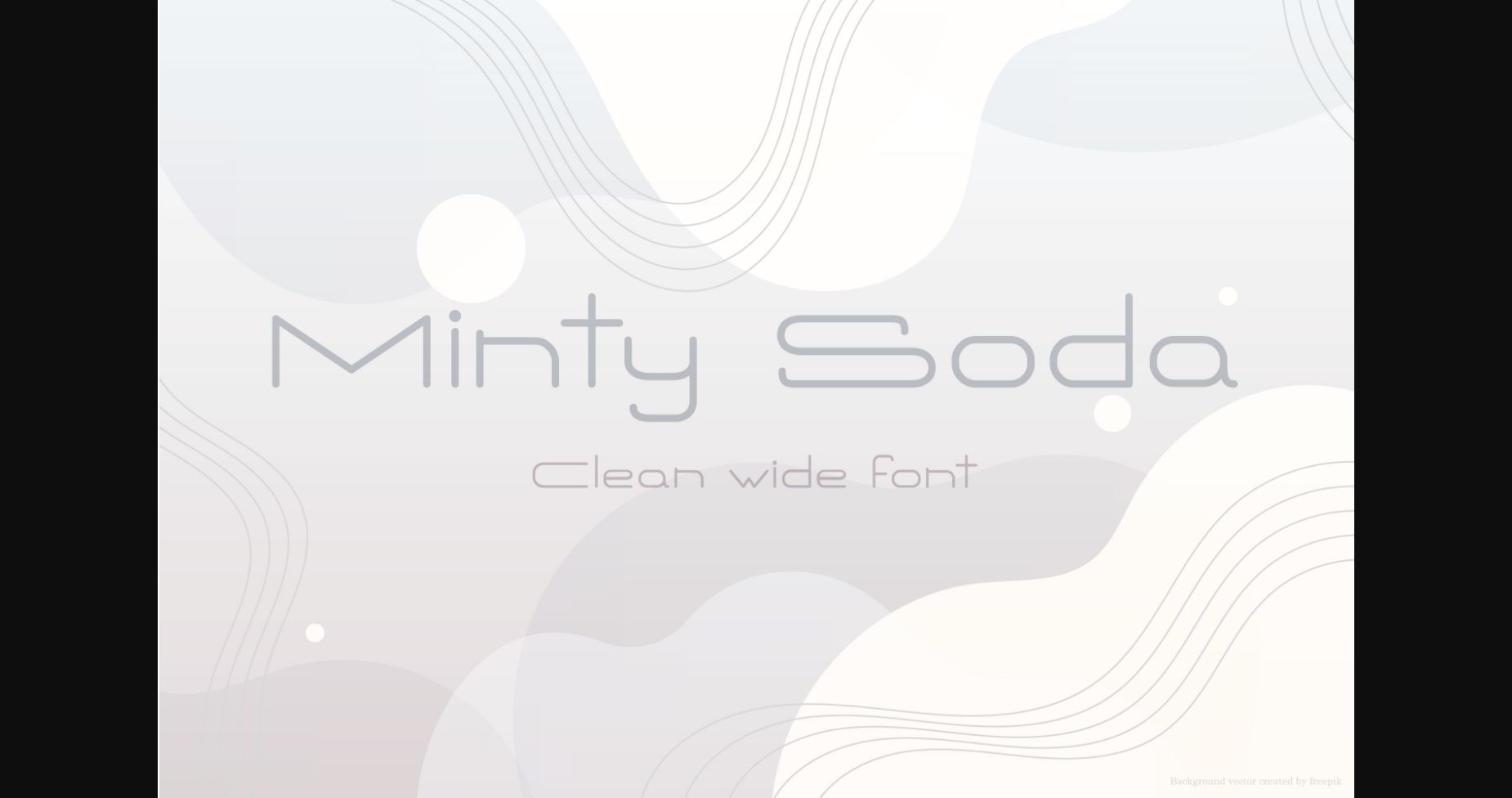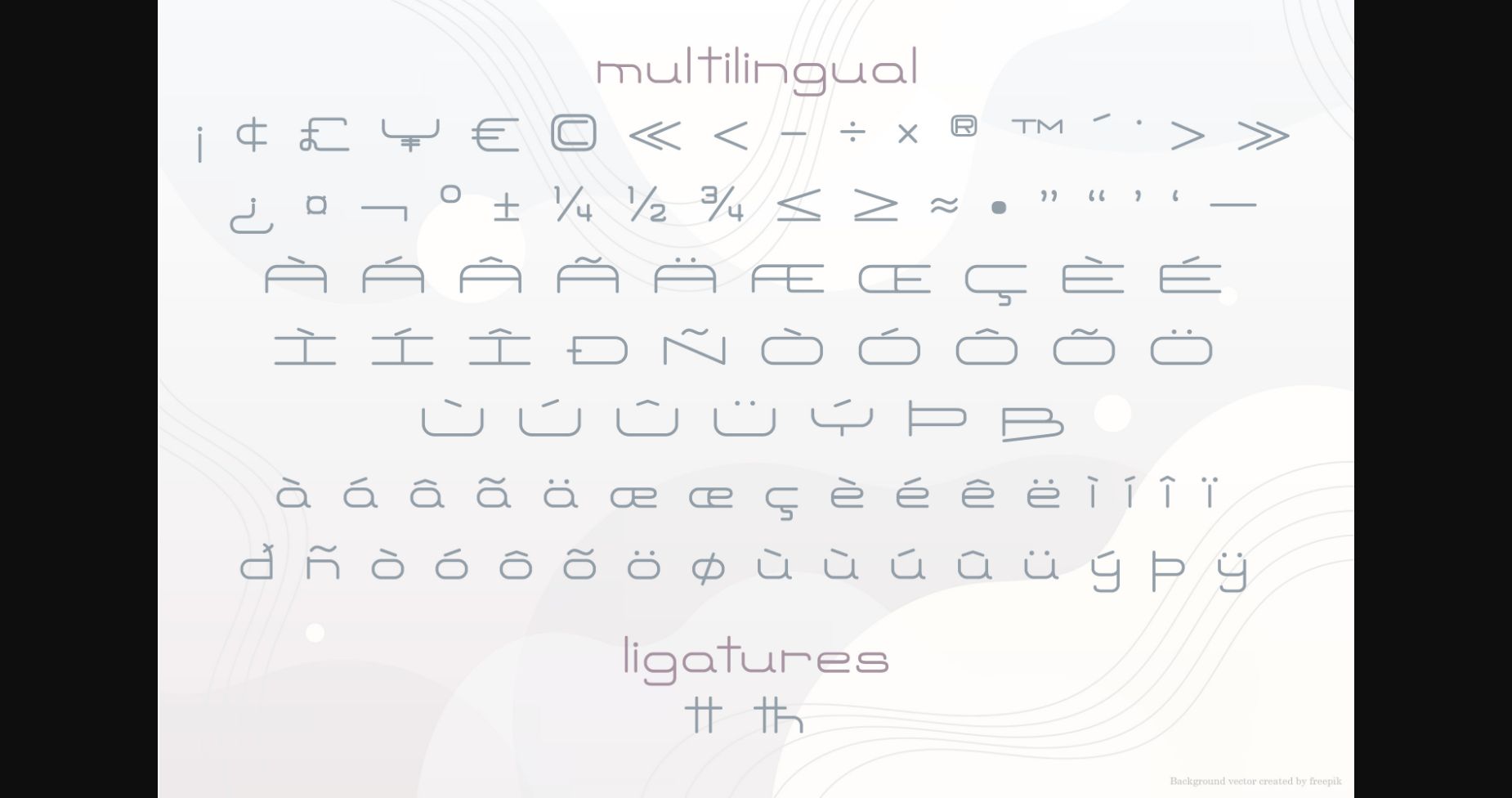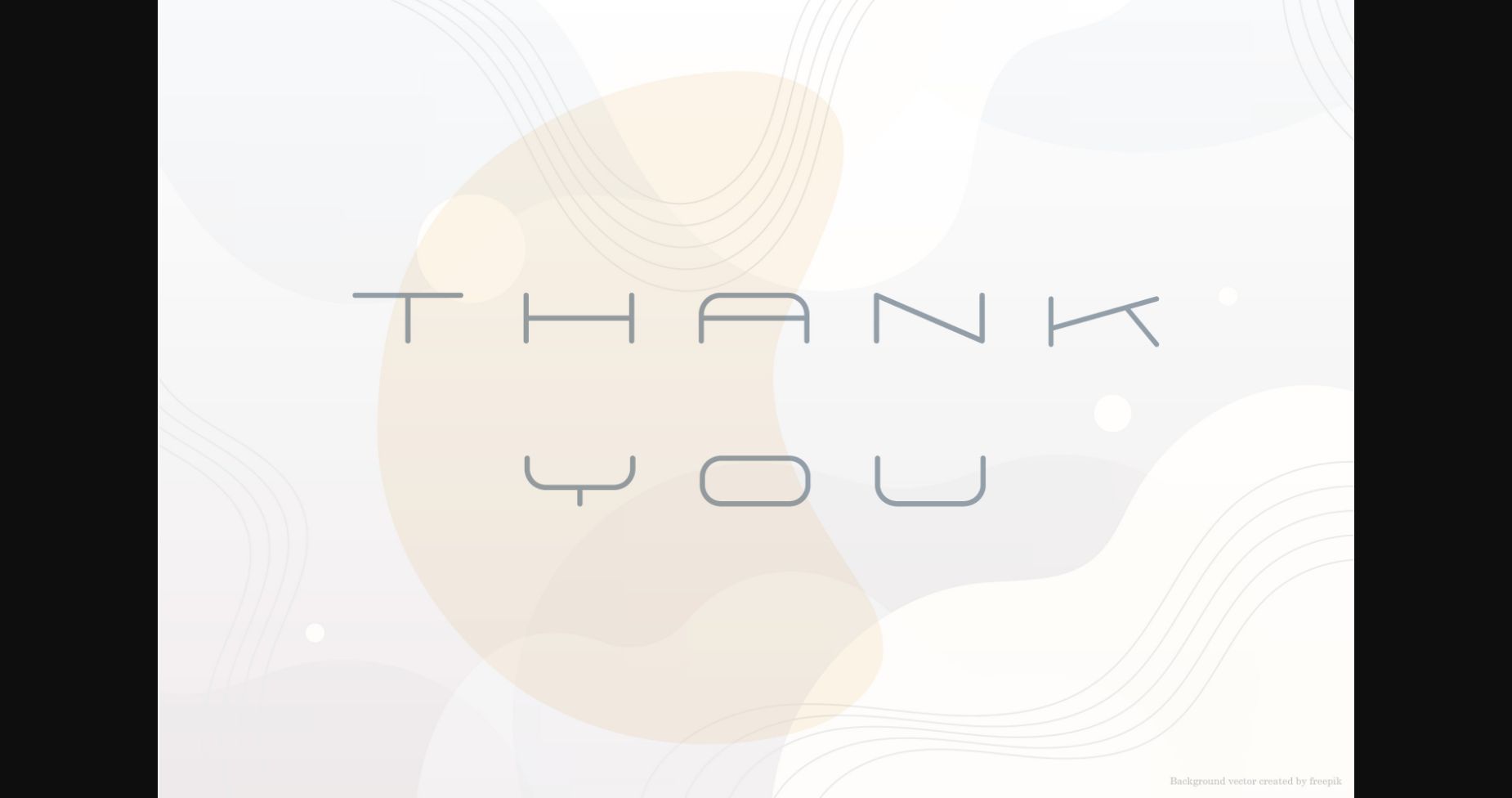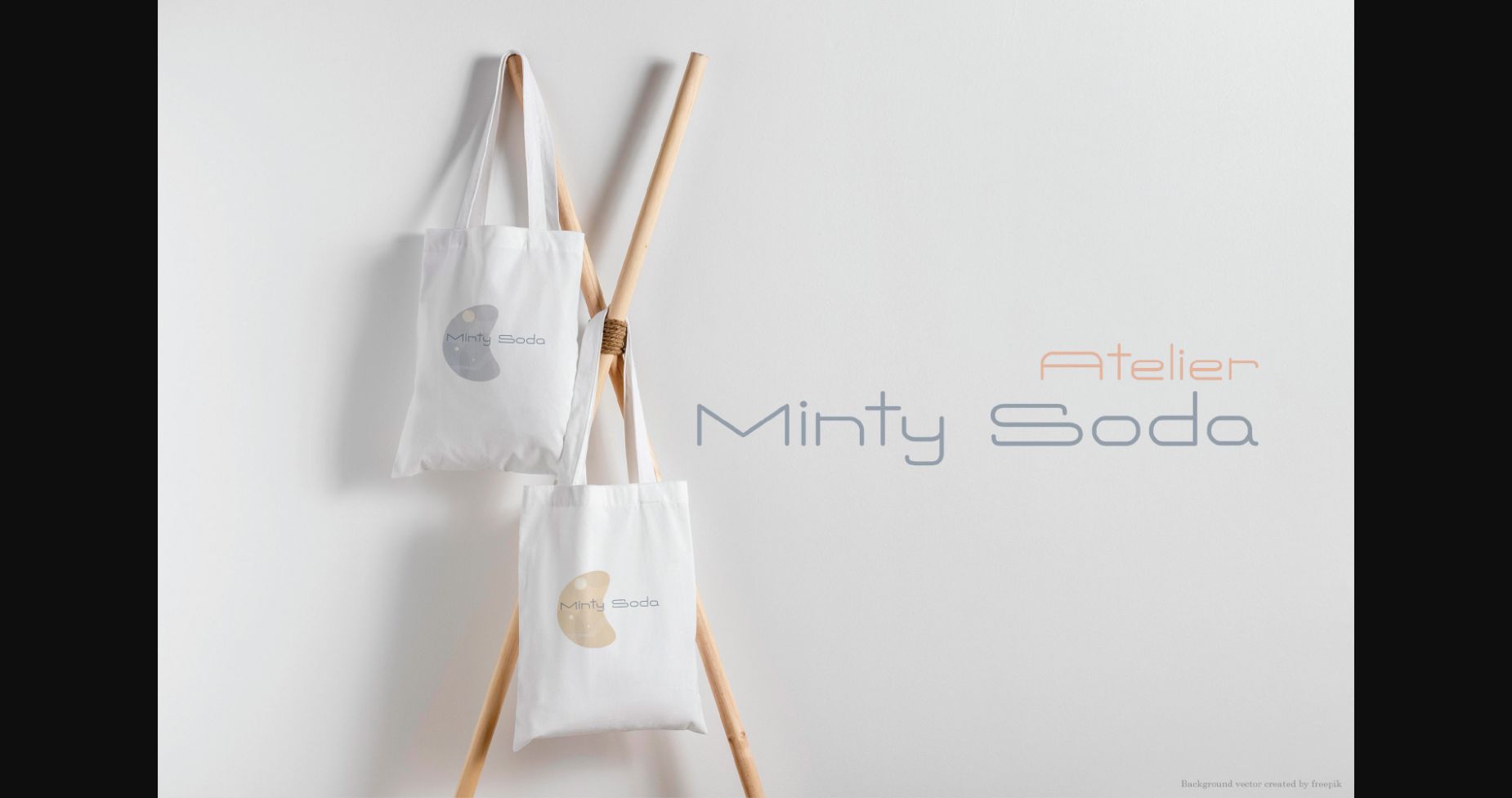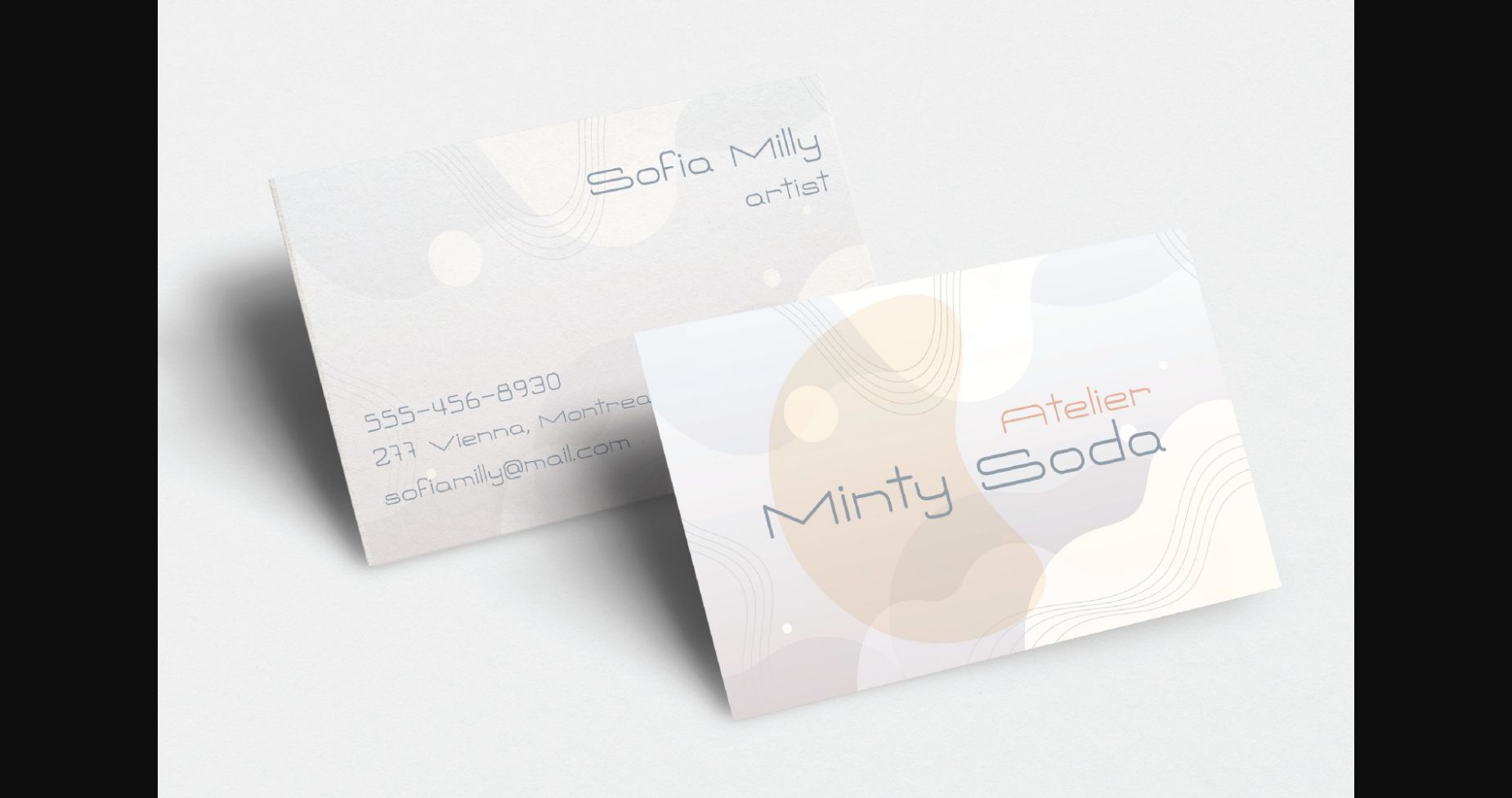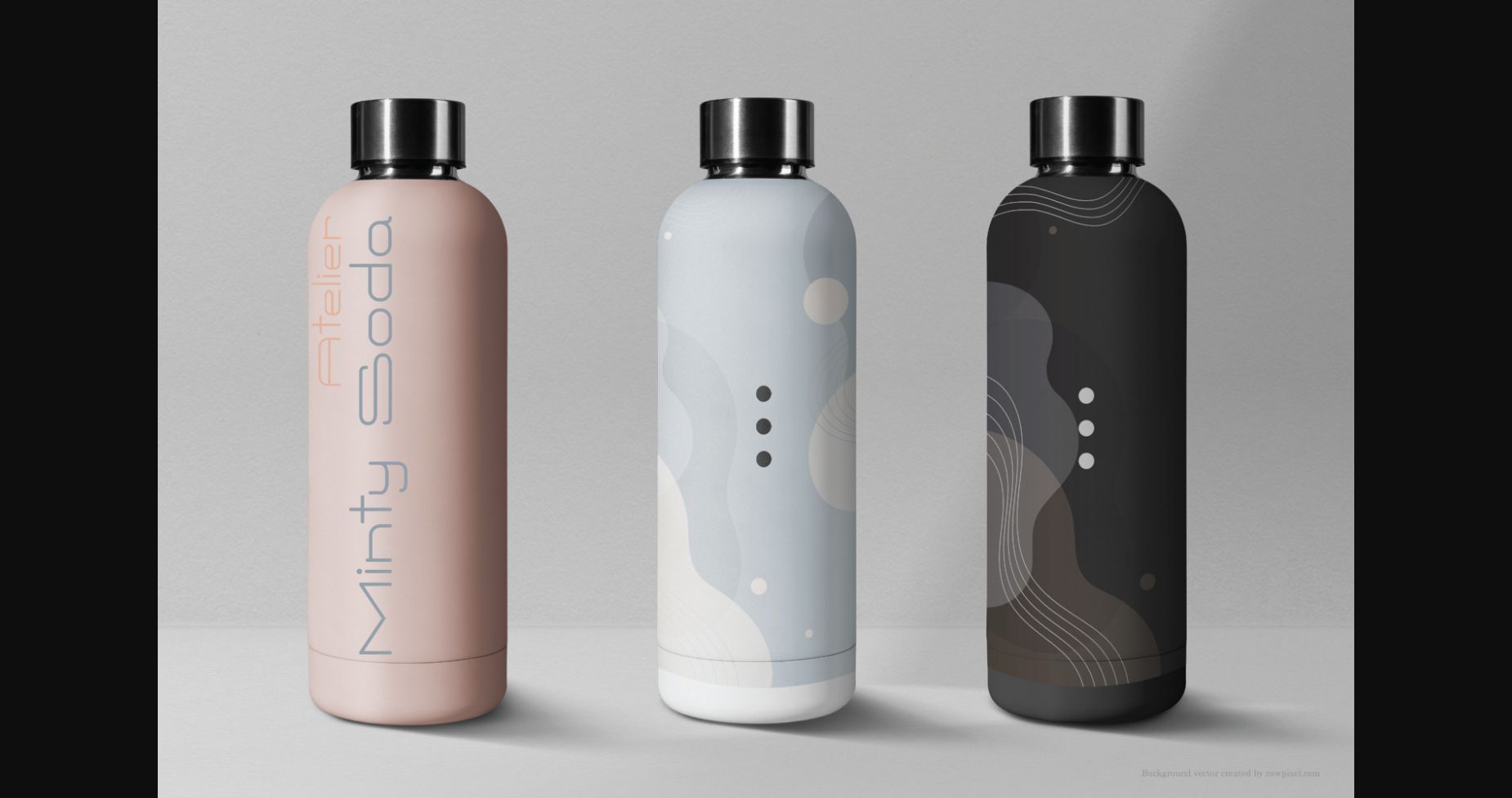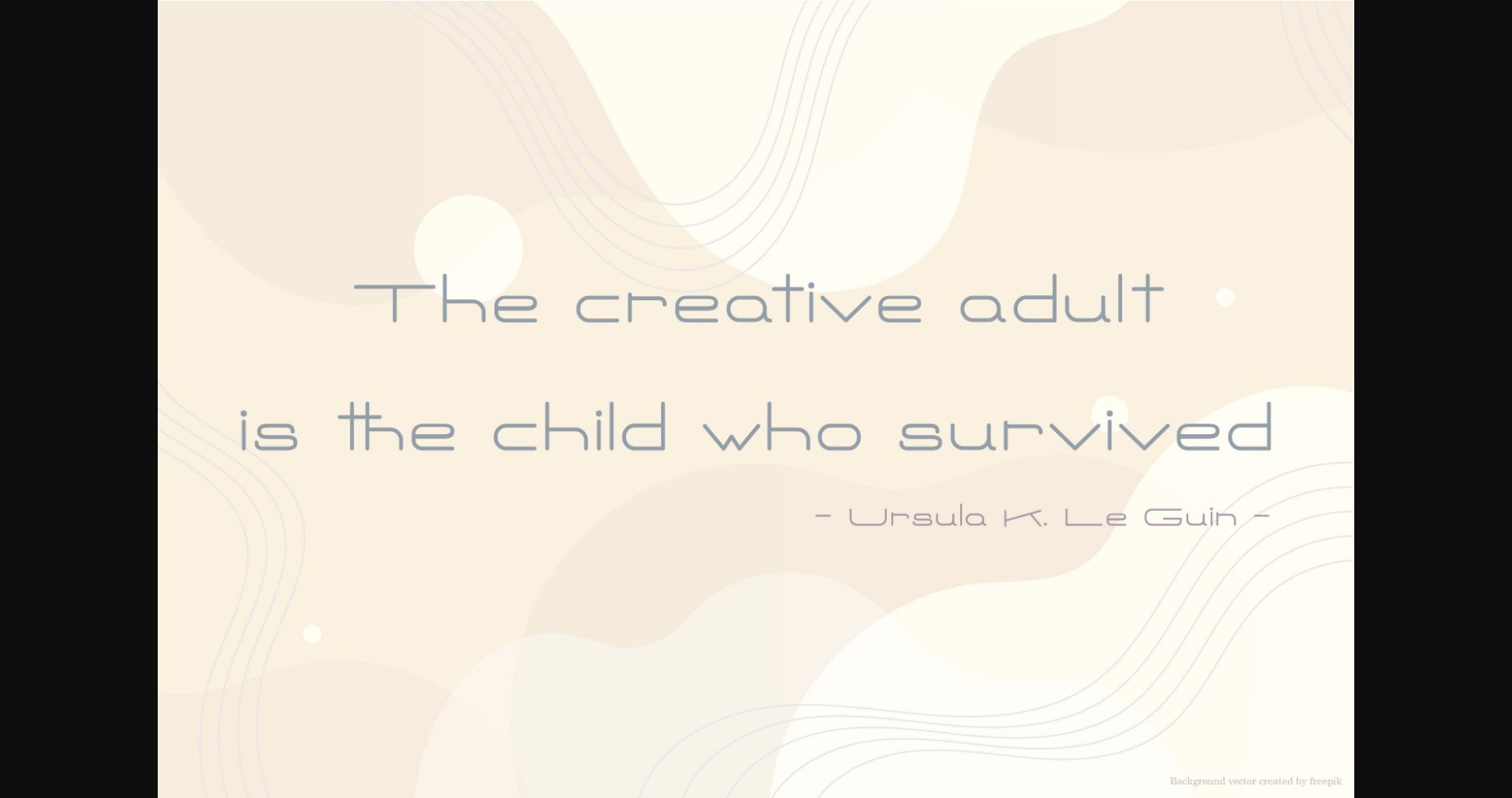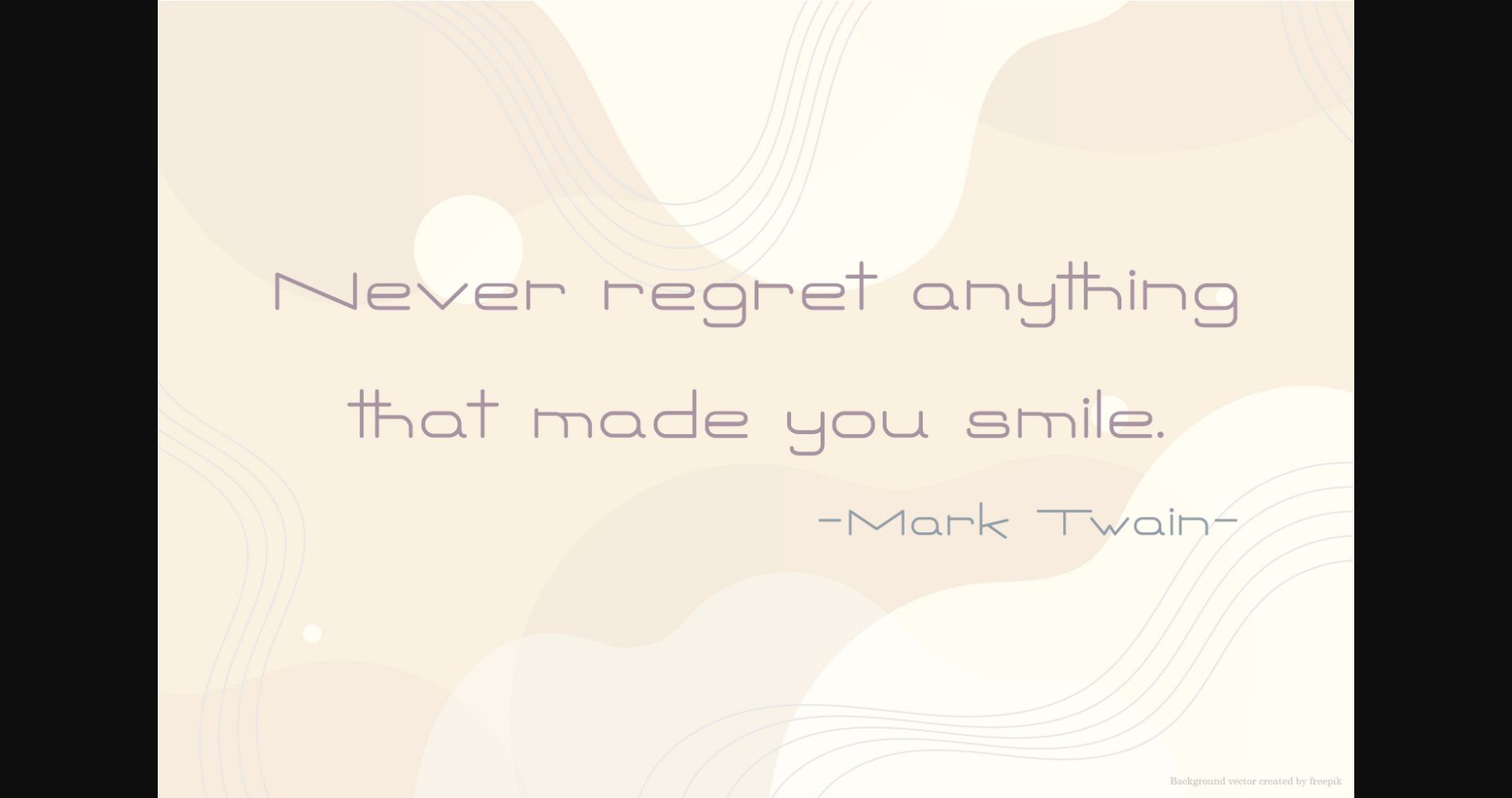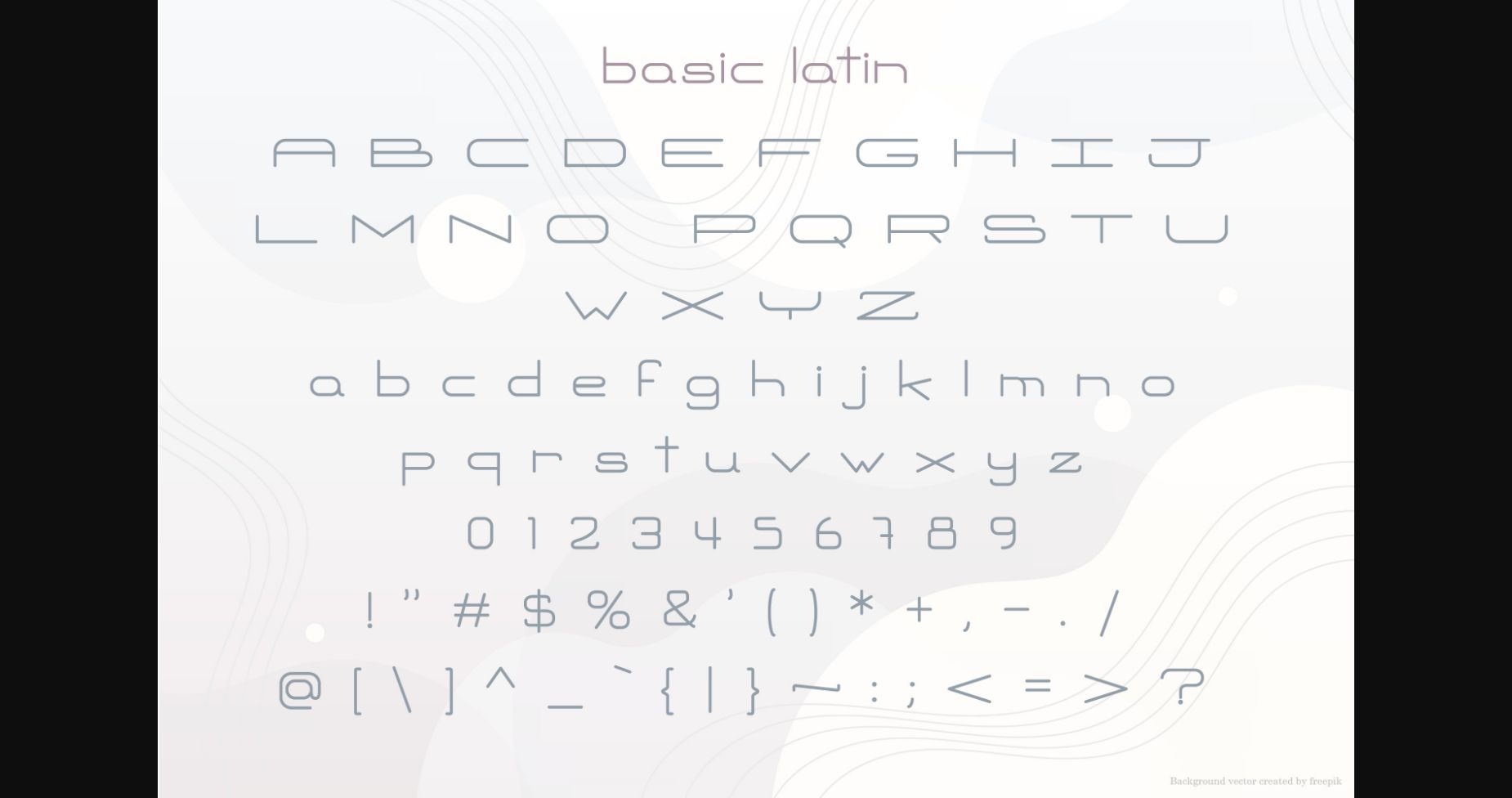
Minty soda is a clean and wide sans serif font. Chic and modern, this font is great for projects that need minimalistic typography such as to-do lists, invitations, name tags, labels, or even your blog!